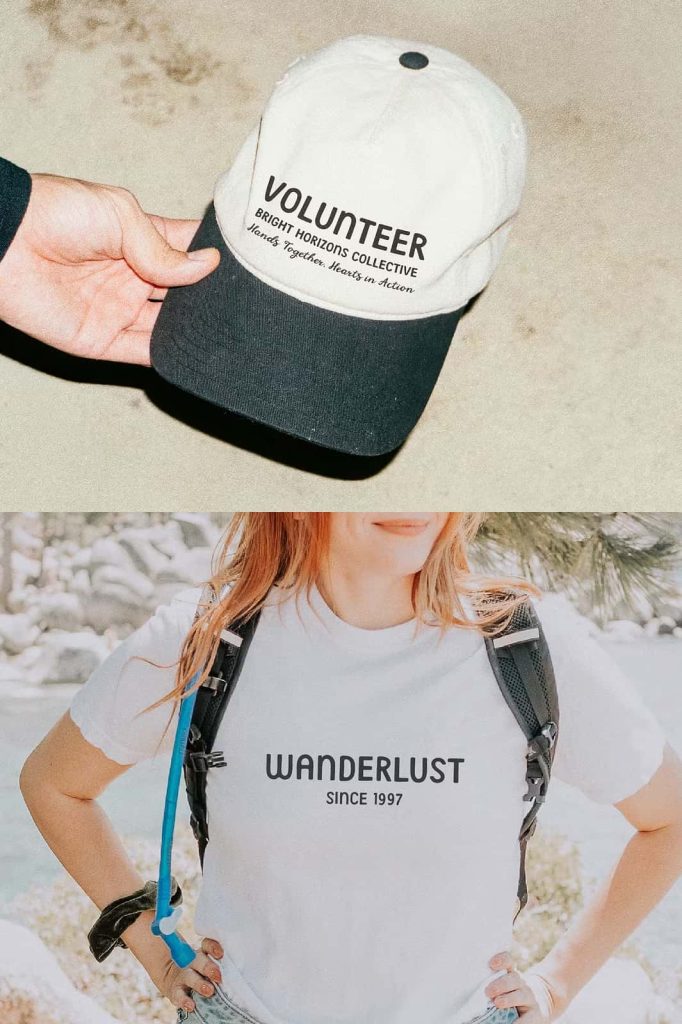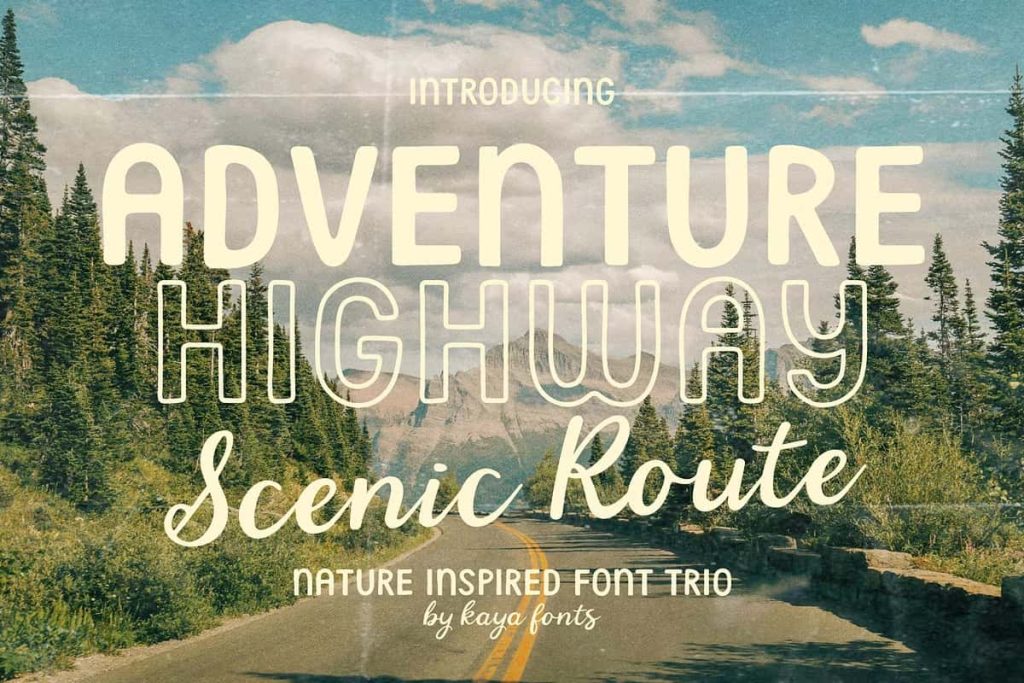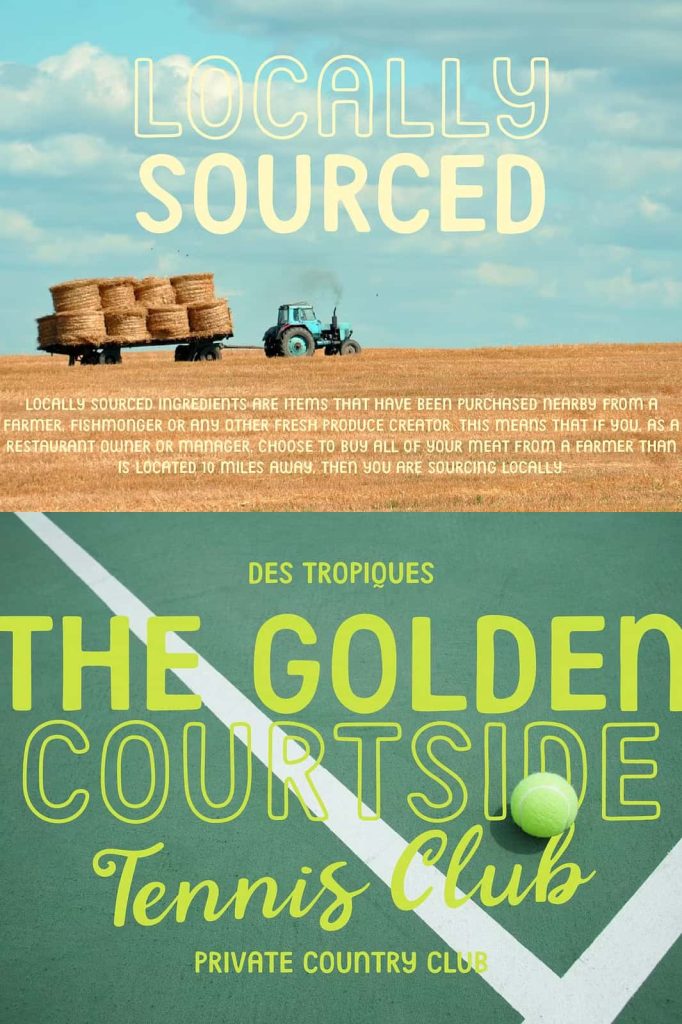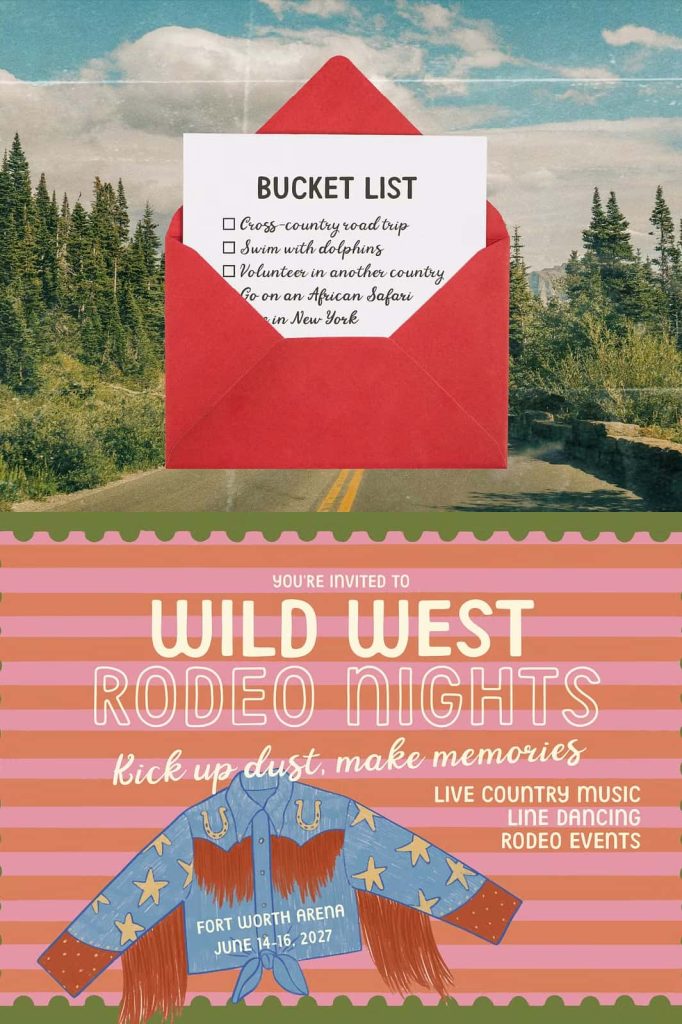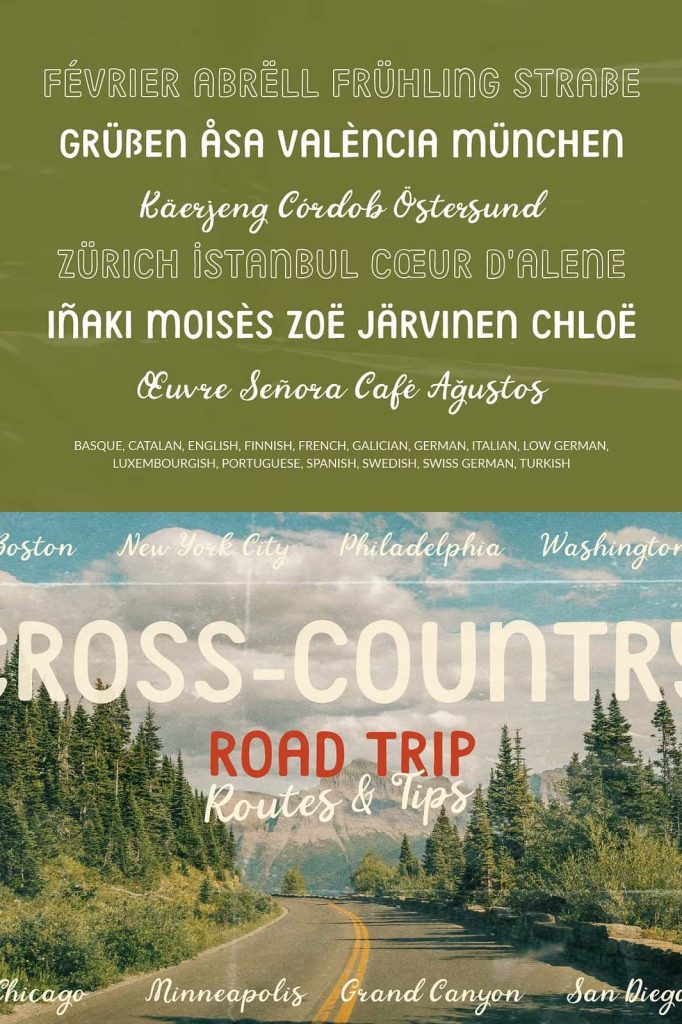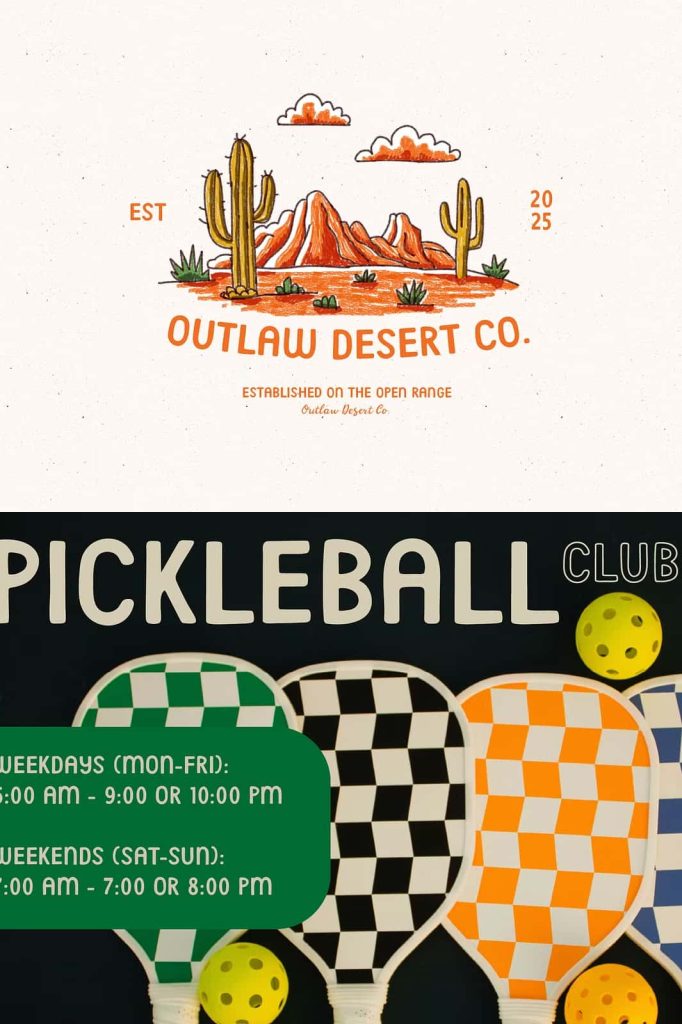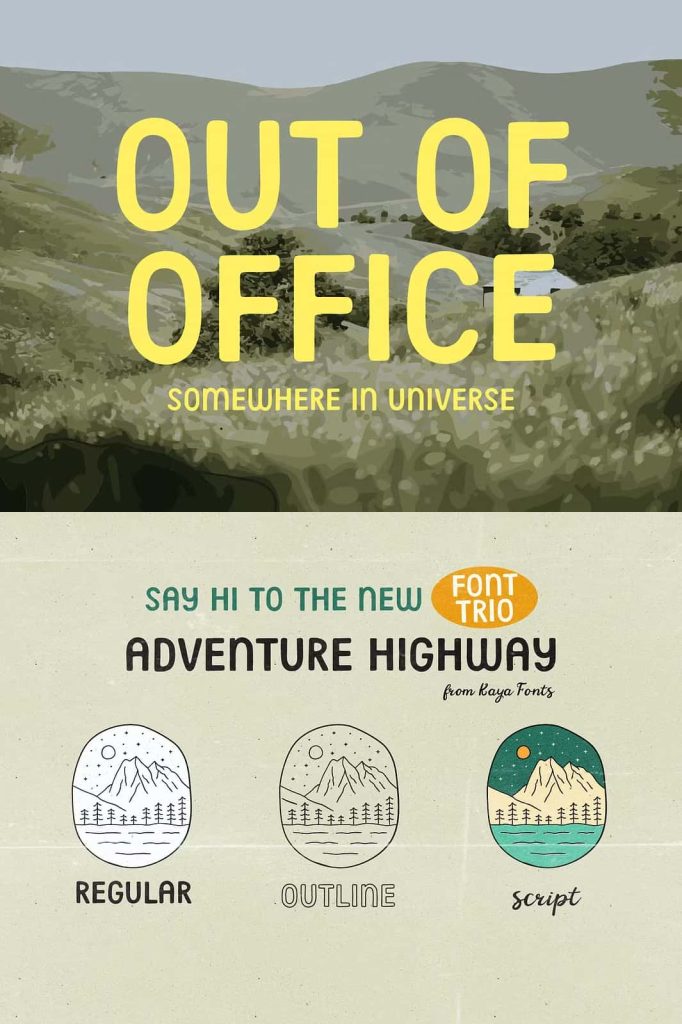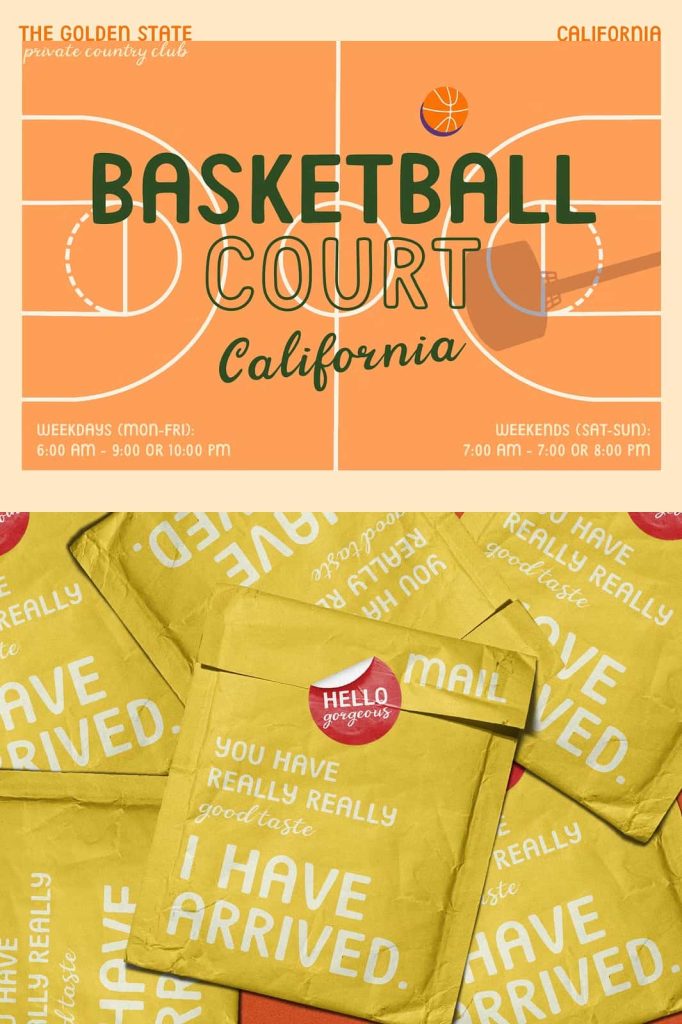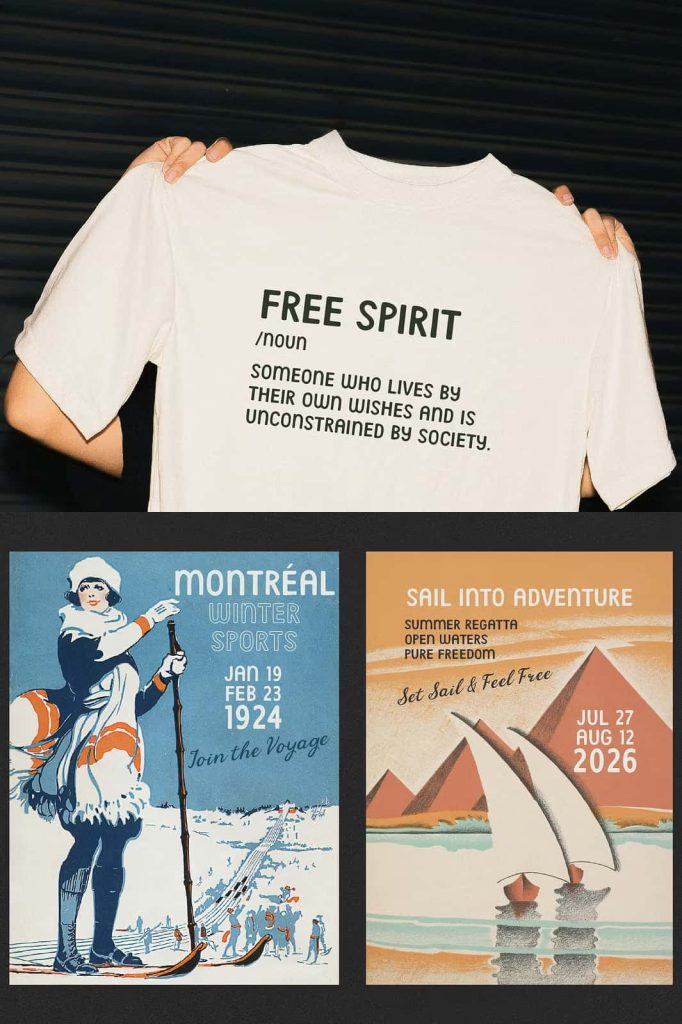
Adventure Highway – Versatile Retro Adventure Font Collection
Adventure Highway is a versatile font collection created to bring the spirit of exploration, vintage road trips, and outdoor adventures into your creative projects. Inspired by scenic highways, nostalgic roadside attractions, national parks, camping culture, and classic travel destinations, this collection delivers a warm, handcrafted personality that instantly makes every design feel welcoming and memorable.
Whether you’re building a rustic brand identity, designing outdoor merchandise, creating travel-inspired packaging, or producing eye-catching promotional materials, Adventure Highway provides the flexibility and charm needed to tell your story. The collection combines expressive typography with timeless retro influences, making it an excellent choice for designers who want typography that feels authentic, adventurous, and full of character.
Its carefully crafted letterforms capture the relaxed atmosphere of life on the open road while maintaining the clarity and versatility required for modern design projects. From bold headlines to stylish branding, Adventure Highway gives your typography a distinctive voice that leaves a lasting impression.
Inspired by the Open Road and Vintage Americana
Adventure Highway celebrates the excitement of discovering new destinations and the nostalgic beauty of classic roadside culture. Every letter reflects the charm of vintage travel signs, old highway markers, rustic cabins, outdoor campsites, and handcrafted lettering found along scenic routes.
This inspiration creates typography that feels both familiar and refreshing. Instead of relying on ordinary display fonts, Adventure Highway introduces an adventurous personality that helps brands and creative projects stand apart while maintaining a timeless appeal.
A Complete Font Collection for Maximum Creativity
Adventure Highway is more than a single typeface. It is a thoughtfully designed font collection that gives designers multiple styles to mix, match, and combine throughout an entire project. This flexibility makes it easy to establish visual hierarchy while maintaining a consistent design language.
Use different font styles together to create attractive headlines, complementary subheadings, engaging logos, and balanced layouts. Whether your project requires bold attention-grabbing titles or subtle supporting typography, Adventure Highway adapts effortlessly.
Perfect for Outdoor and Lifestyle Branding
The natural warmth of Adventure Highway makes it especially suitable for brands connected to outdoor living, travel, handmade products, and adventure-inspired businesses. Its friendly personality helps communicate authenticity, craftsmanship, and exploration.
Brand Identity and Logo Design
Create memorable logos that reflect adventure, freedom, and creativity. Adventure Highway gives outdoor brands, camping companies, coffee shops, breweries, travel agencies, and lifestyle businesses a distinctive visual identity that customers remember.
Packaging and Product Labels
Bring handcrafted charm to product packaging, food labels, coffee bags, beverage containers, candles, soaps, outdoor equipment, and artisan products. The collection enhances packaging with typography that feels natural, premium, and inviting.
Posters and Promotional Graphics
Adventure Highway performs beautifully in posters, flyers, banners, advertisements, festival promotions, and event materials. Its expressive character allows headlines to stand out while maintaining excellent readability.
Apparel and Merchandise
Create stylish typography for t-shirts, hoodies, hats, tote bags, stickers, mugs, patches, and outdoor merchandise. The retro-inspired aesthetic pairs perfectly with adventure-themed products and lifestyle collections.
Ideal for Print and Digital Design
Adventure Highway delivers excellent performance across both printed materials and digital platforms. Whether you’re designing a website banner, social media content, printed catalog, product brochure, or editorial layout, the font collection maintains clarity and visual impact across multiple sizes.
Its balanced construction makes it suitable for everything from bold display headlines to supporting design elements, allowing designers to maintain consistency throughout an entire brand or campaign.
Recommended Design Applications
Adventure Highway works exceptionally well for numerous creative projects, including:
- Outdoor branding
- Travel agencies
- National park merchandise
- Camping equipment
- Coffee shop branding
- Craft breweries
- Restaurant menus
- Adventure blogs
- Vintage logos
- Tourism promotions
- Packaging design
- Book covers
- Magazine layouts
- Festival posters
- YouTube thumbnails
- Website headers
- Product catalogs
- Greeting cards
- Custom apparel